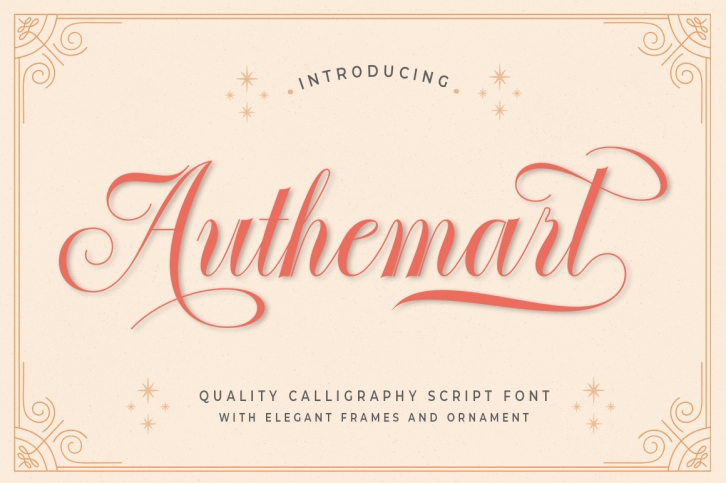
Authemart is a beautiful font that was designed by Great Studio. It's a great choice for designers and creatives who need such a font. It was released on September 6, 2018 and the file size is 9.15 MB. Authemart may give a more youthful, expressive and casual look to your project. It is a very beautiful, refined, elegant, and high-quality font.